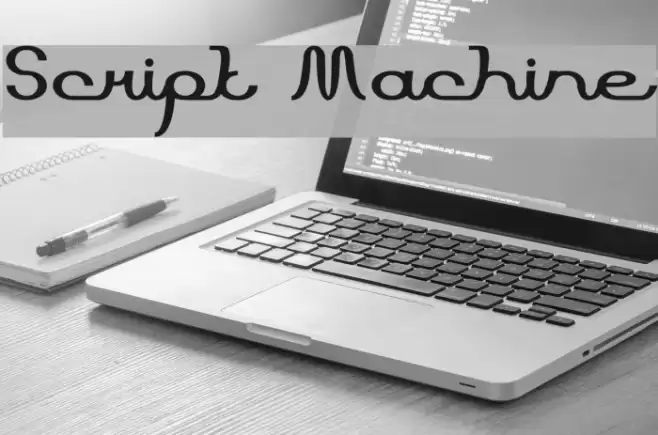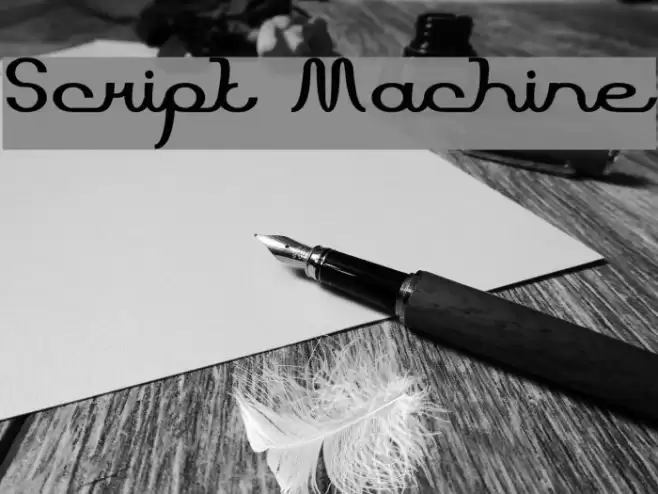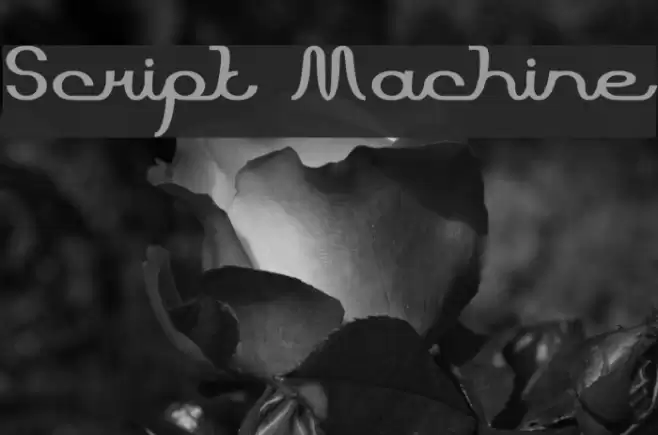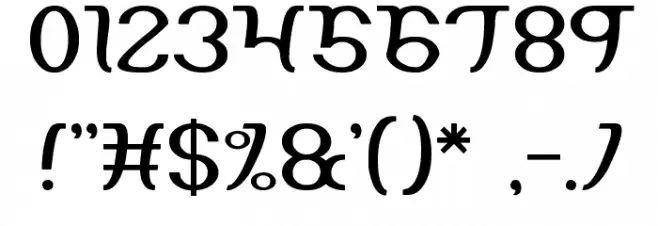
Script Machine Font
Script Machine Description
This font features a playful and flowing script style, characterized by its smooth, continuous strokes that mimic the fluidity of handwriting. The uppercase letters are bold and slightly whimsical, while the lowercase letters maintain a consistent, connected form that enhances readability. The numerals are distinct and easy to distinguish, with a slight curl that adds to the overall charm. Special characters are well-integrated, maintaining the font's cohesive style. This font exudes a sense of creativity and elegance, making it suitable for a variety of design applications.
A playful, flowing script font with smooth, continuous strokes from Uncategorized fonts.
- Proposed Projects: Ideal for invitations, greeting cards, branding, and creative projects that require a personal touch.
- Use Case: Logos, Invitations, Greeting Cards